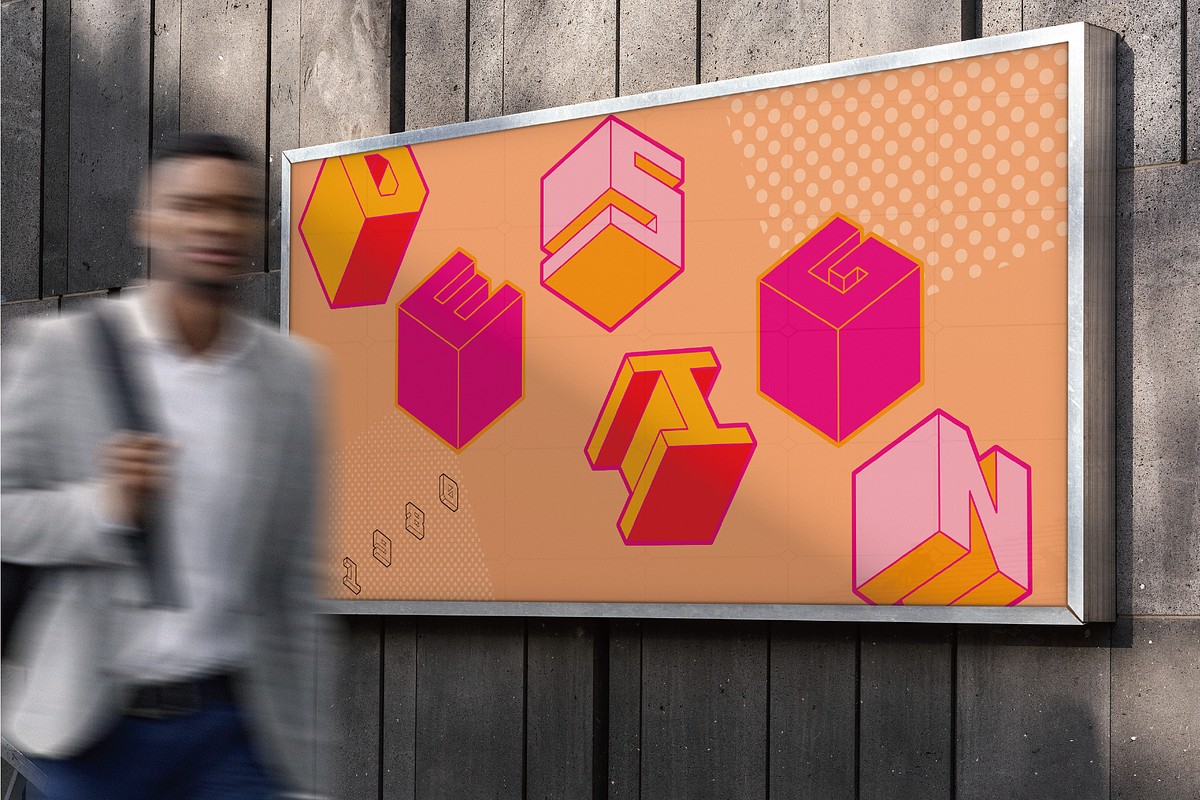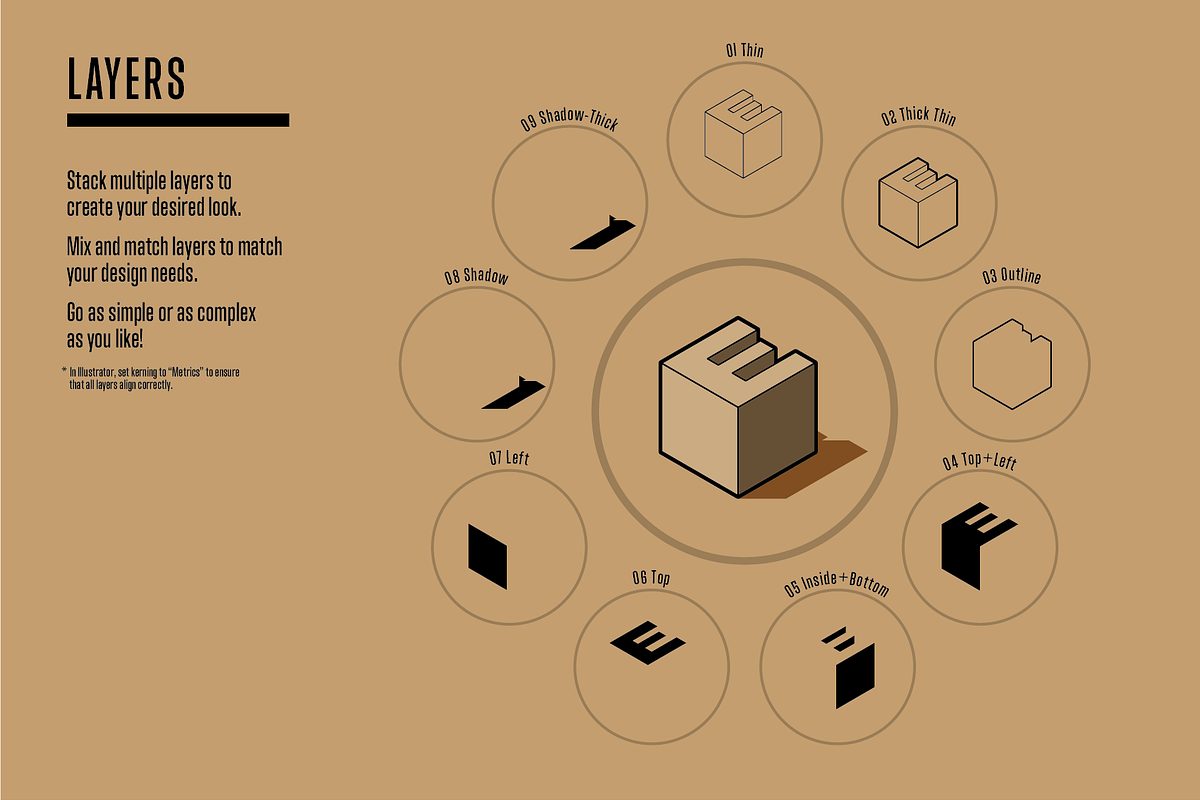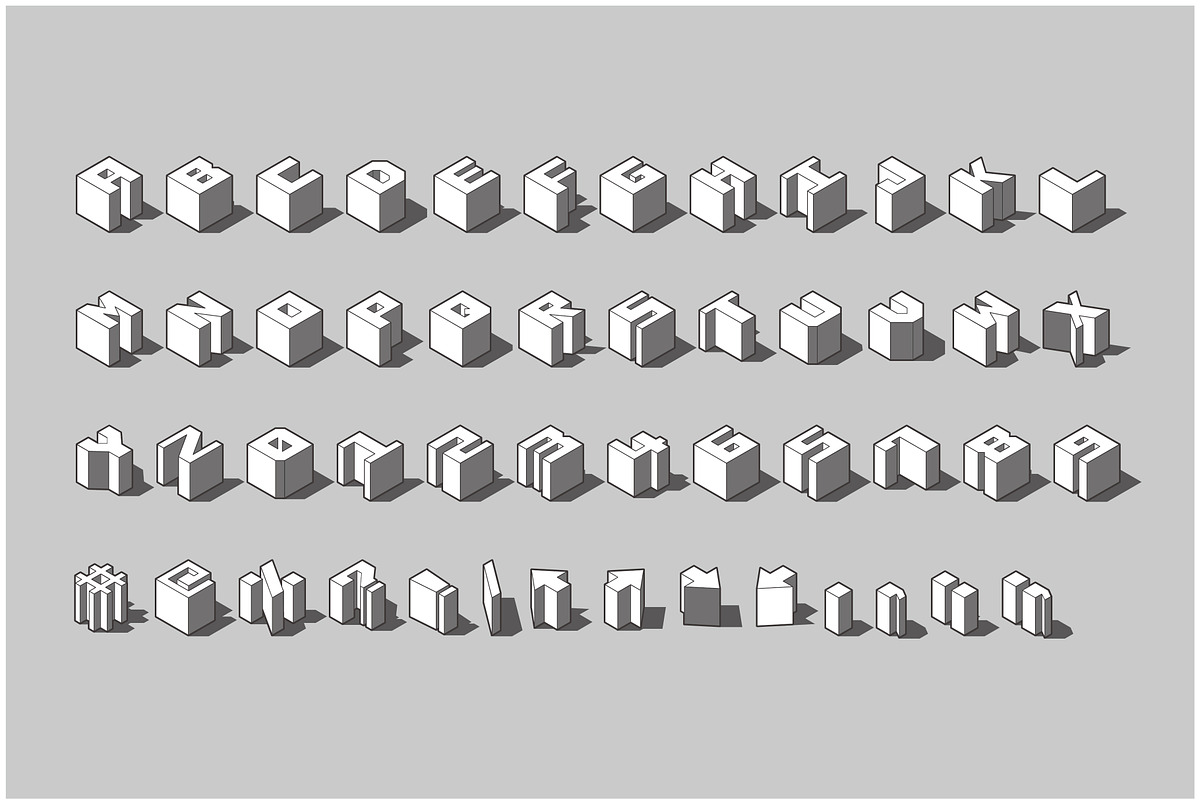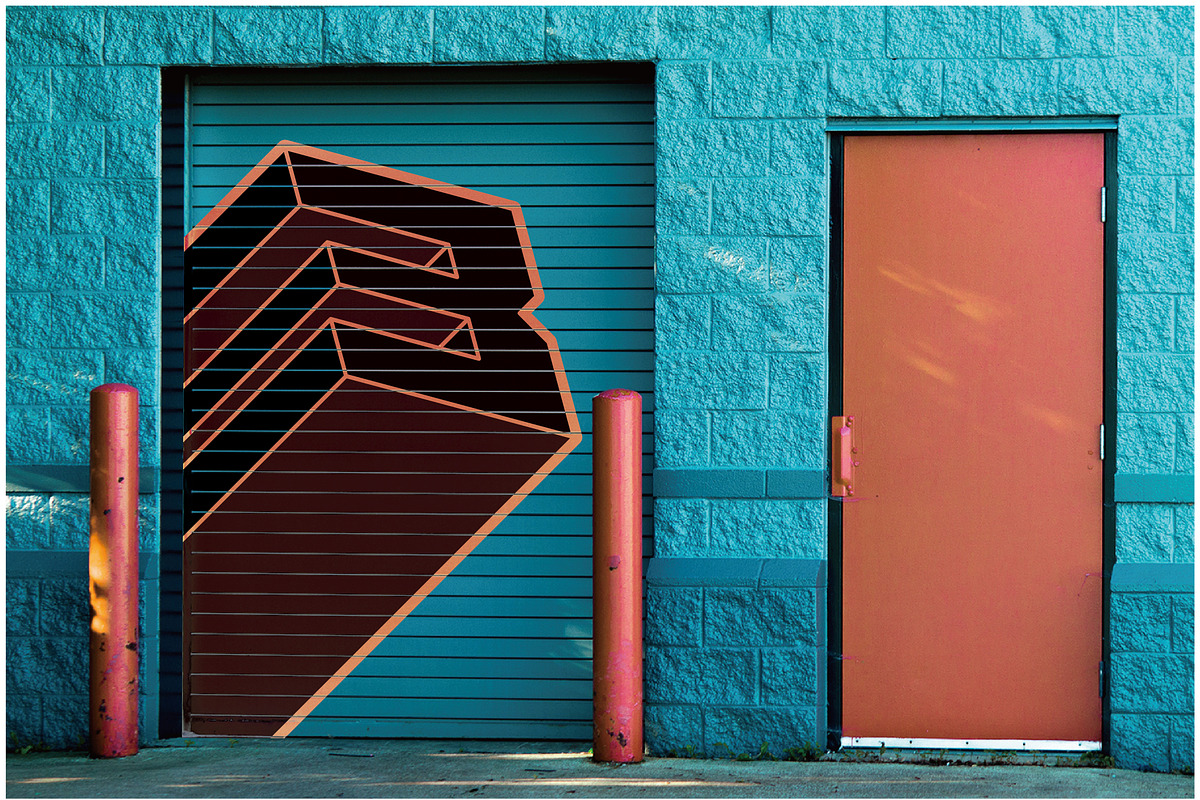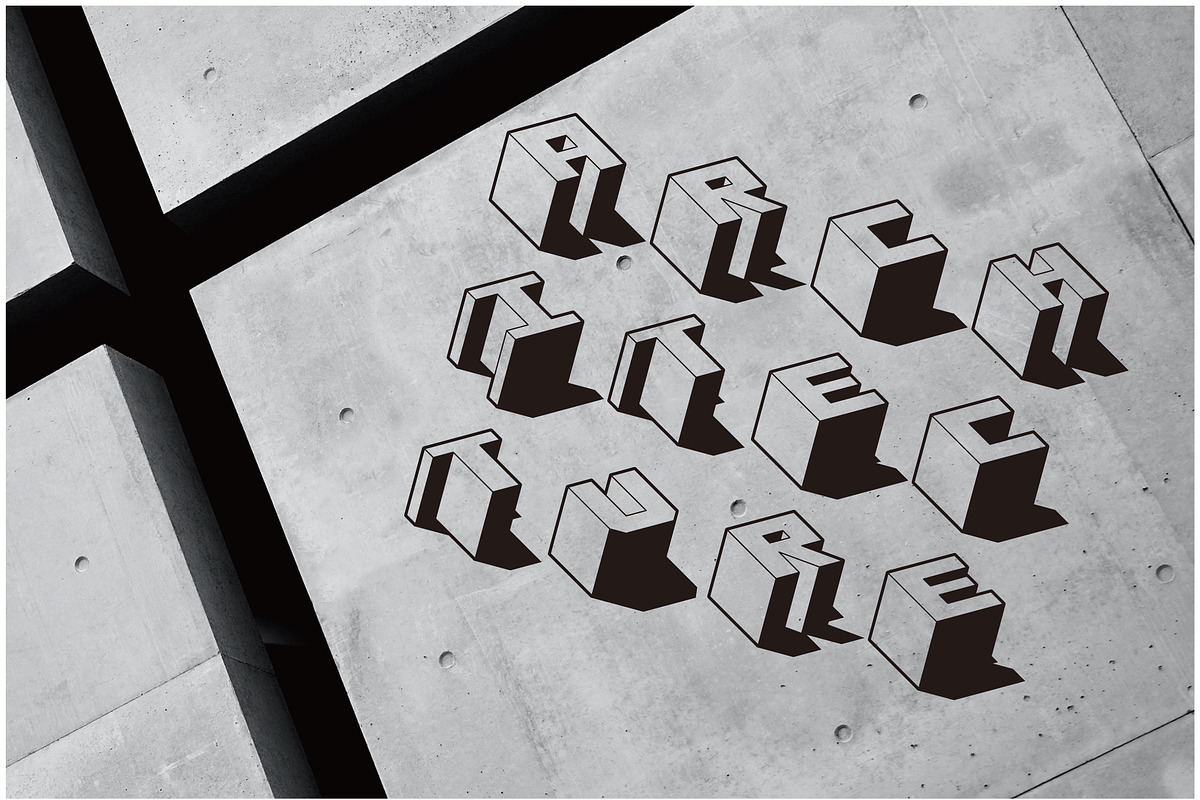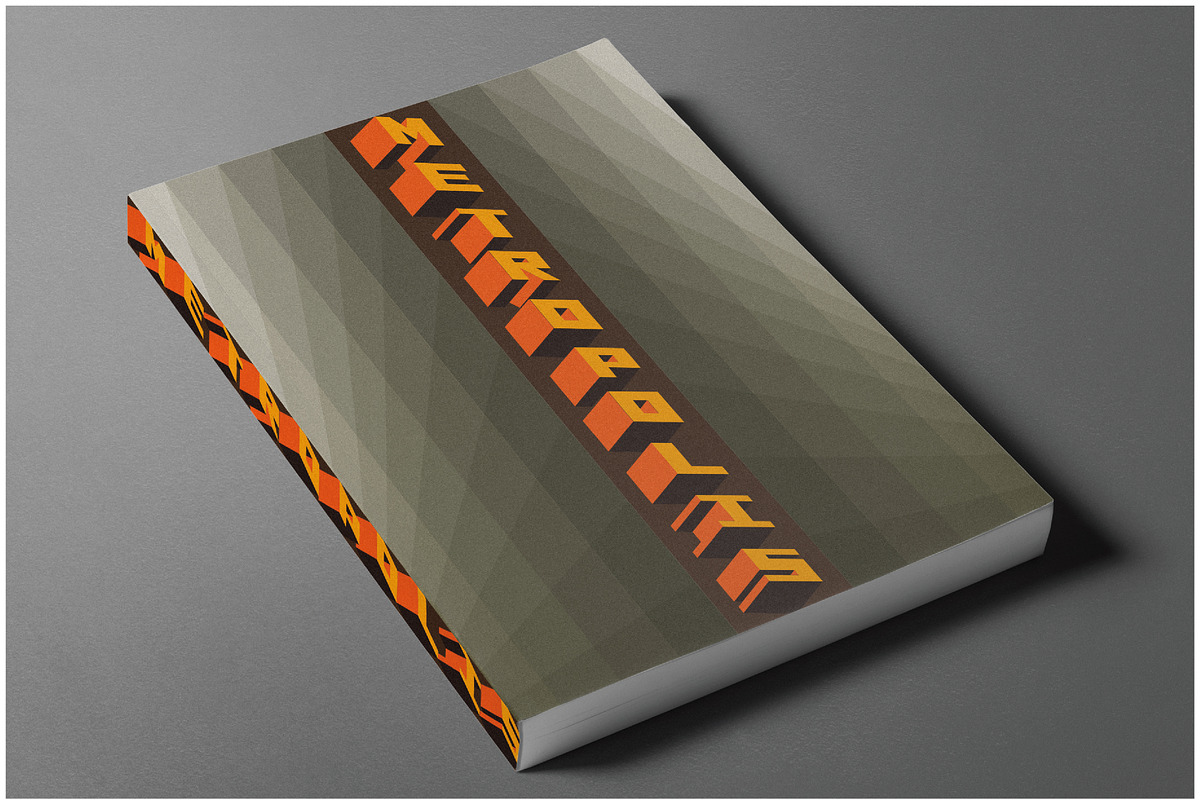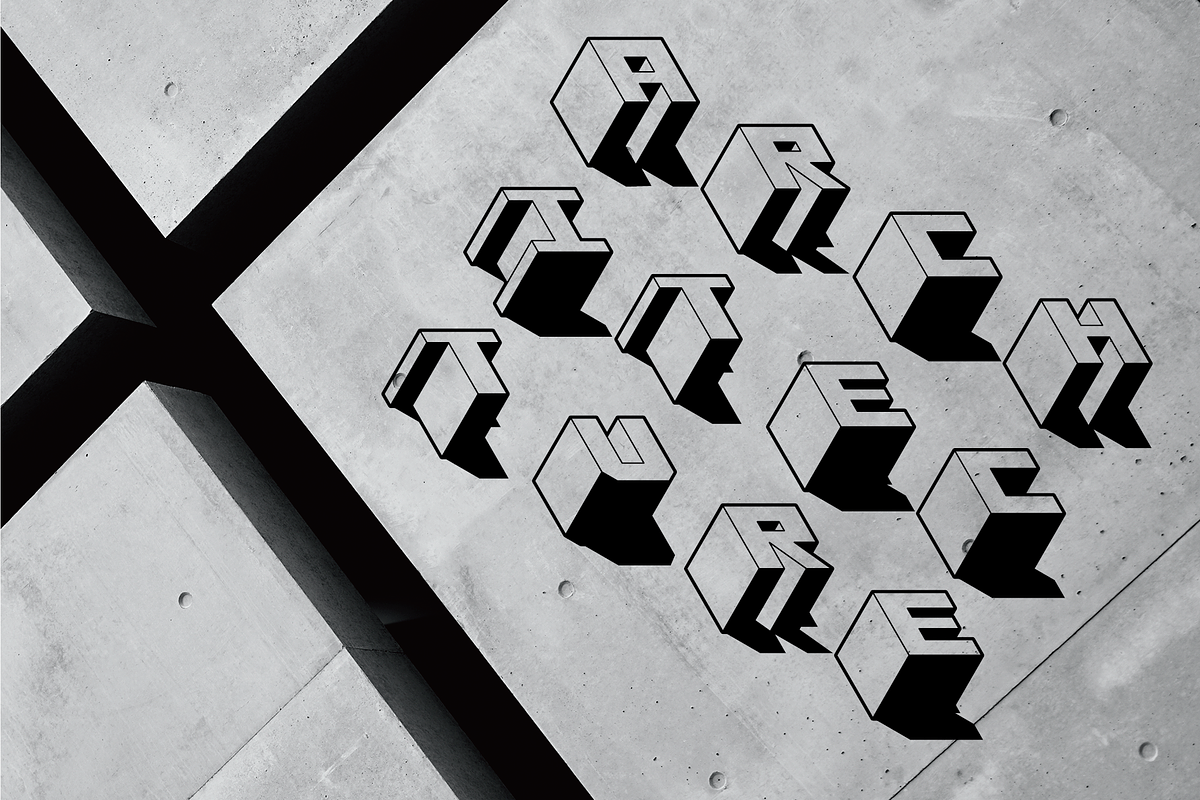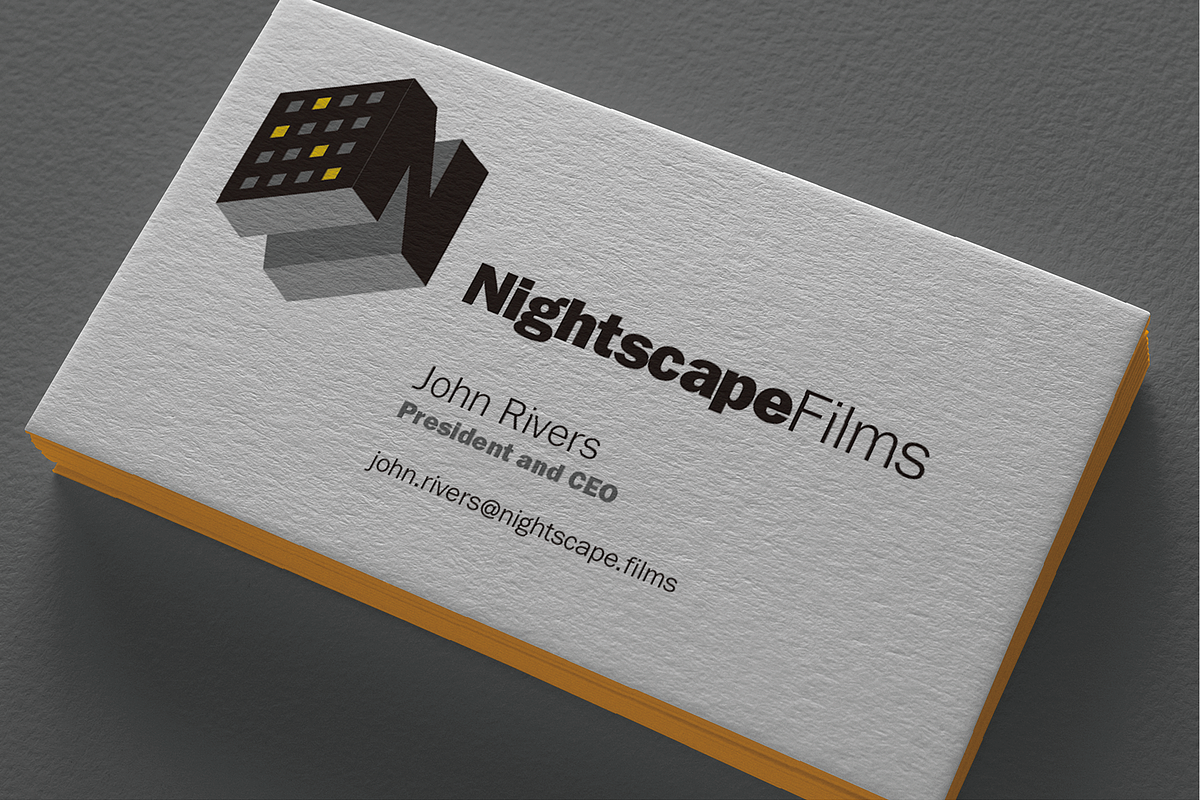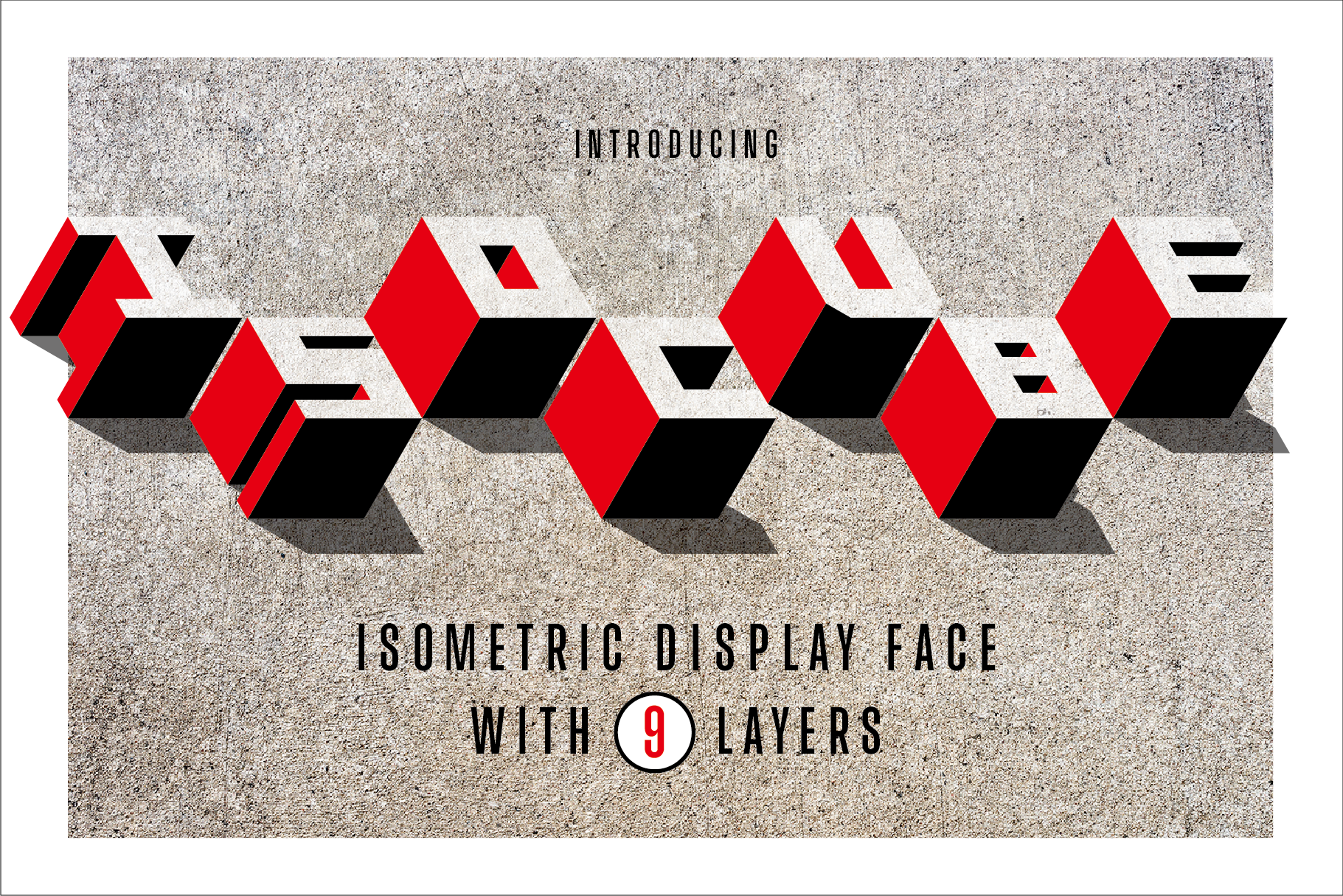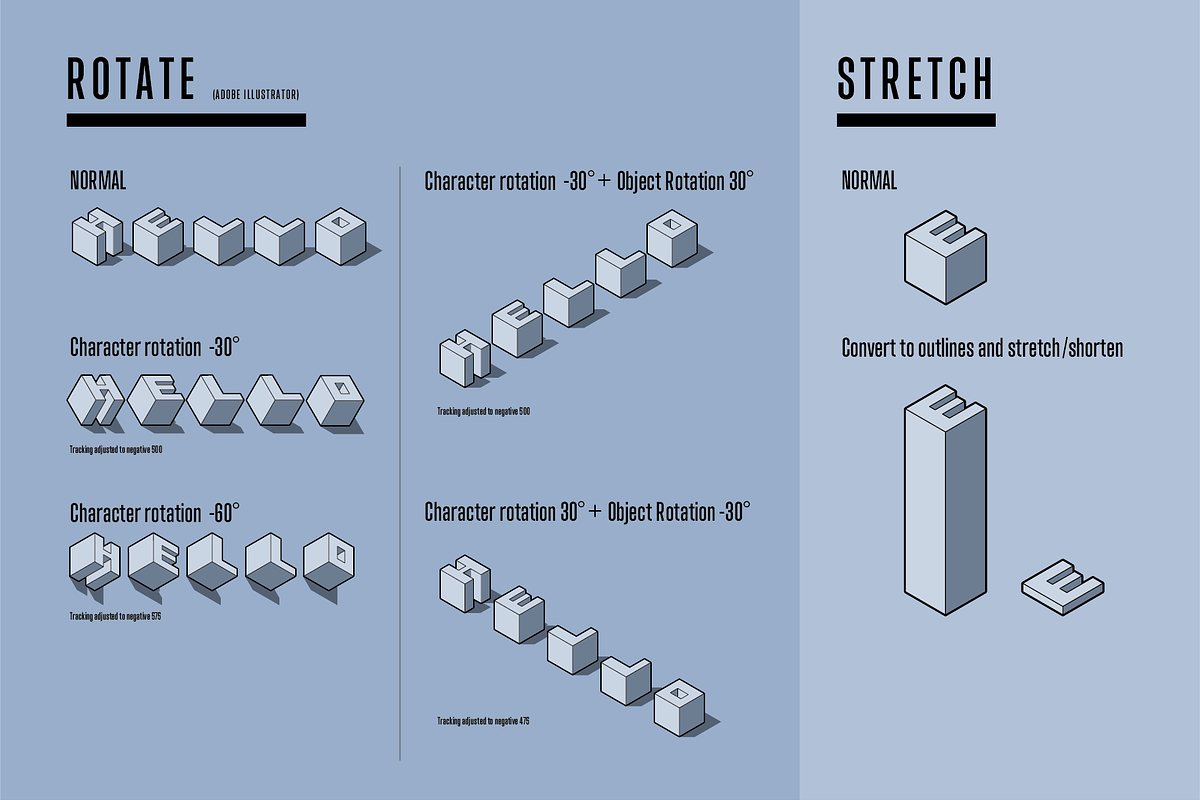
Isocube – Layered Isometric Font
Isocube is a layered, isometric display face perfect for bold statements in identity design, publication design, advertising, sign design, etc.
- Create stunning, customizable designs with this 9-layer face.
- Stack multiple layers, mix and match layers to achieve your desired look.
- Rotate individual characters and/or words for fresh combinations.
- Convert the font to outlines and stretch/shorten the letters for even more effects.
Includes 9 font layers that stack together (see screenshot)
- 01 Thin
- 02 Thick Thin
- 03 Outline
- 04 Top + Left
- 05 Inside + Bottom
- 06 Top
- 07 Left
- 08 Shadow
- 09 Shadow-Thick
- Minimal character set (see screenshot)